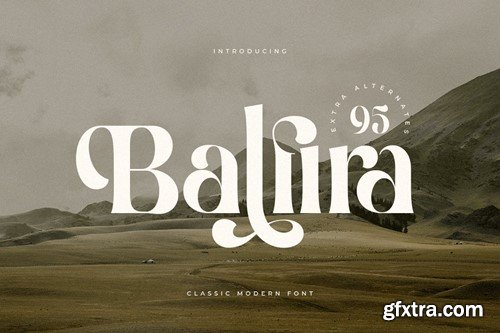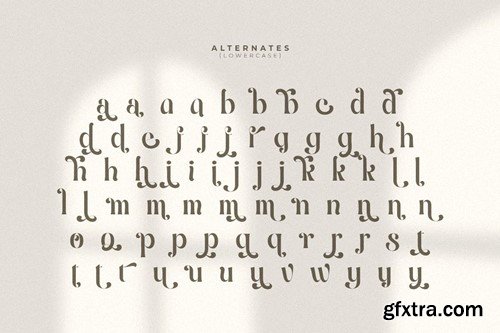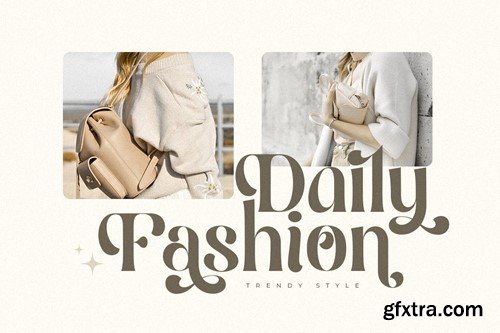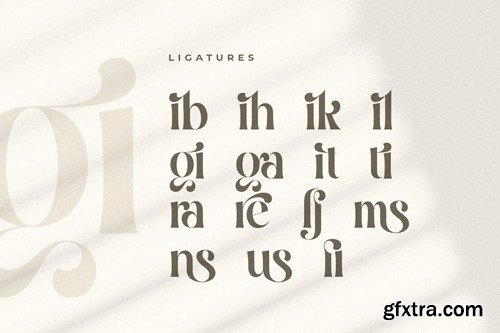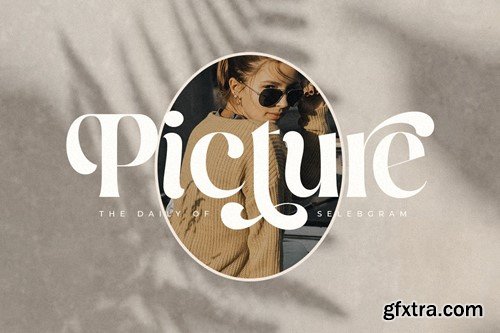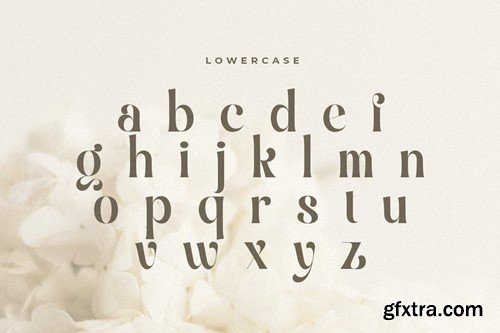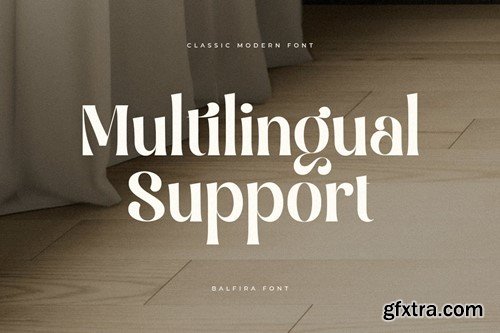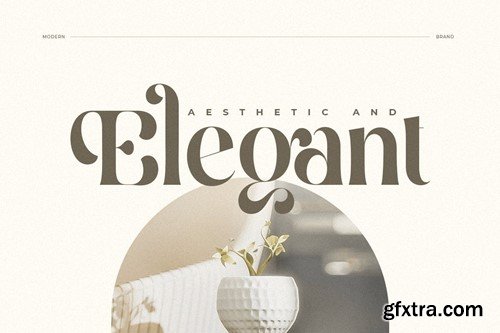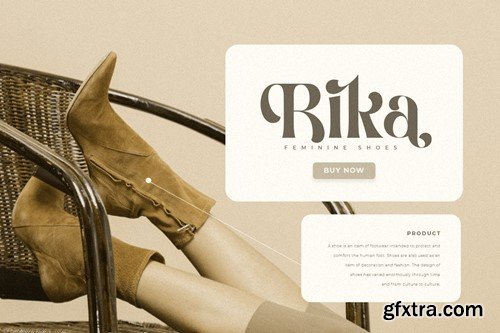
Balfira - Classic Modern Font PG736JW
Balfira - Classic Modern Font
Balfira is a Classic Vintage sans serif font for Retro, Luxury, Cinematic, classy, and beauty branding needs, font that you can combine to get any variations and unique shapes easily just in seconds with choose alternates of them. It is a serif display font with moderate contrast that perfect for cinematic, branding projects, logo, wedding designs, social media posts, advertisements, product packaging, product designs, label, photography, watermark, invitation, stationery, and any projects, it makes with a high level of legibility.
• Alternate & Ligature Characters
• Character set A-Z (Uppercase & Lowercase)
• Numerals & Punctuation
• Accented Characters (West Europe)